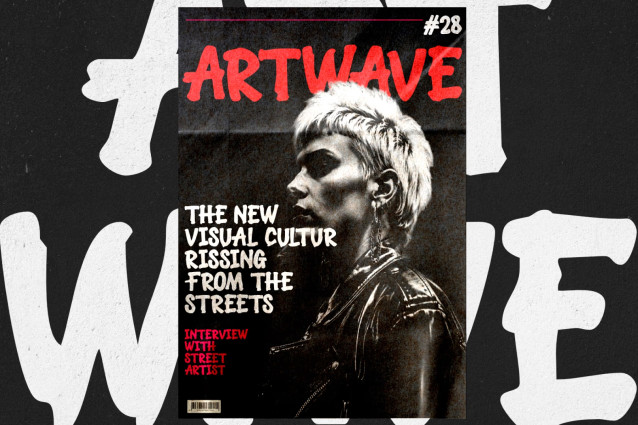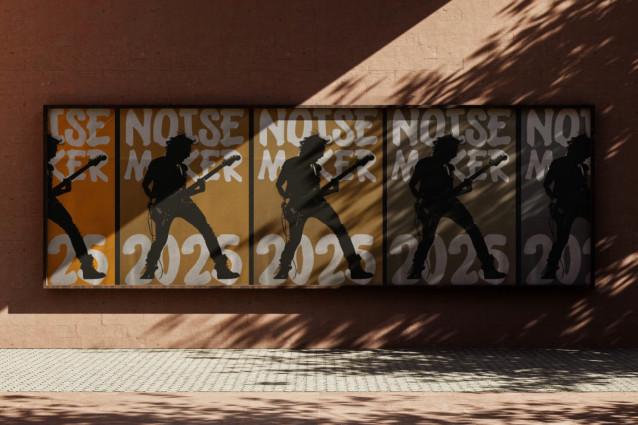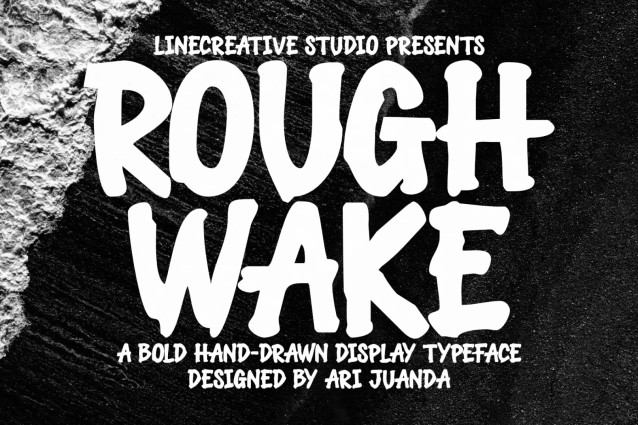
Roughwake Display Font
Roughwake Display Font is a bold hand-drawn display typeface made for designs that need strong personality, raw energy, and an unmistakably handmade character. With chunky letterforms, rough contours, organic shapes, and naturally irregular details, Roughwake brings an expressive and authentic feeling to every word.
Designed to stand out, Roughwake has a distinctive visual personality that feels bold, rugged, playful, rebellious, and adventurous. Its hand-drawn appearance gives typography a more human quality, while its heavy forms provide the visual strength needed for impactful headlines and large-scale designs.
Roughwake is not limited to one particular style. Depending on the imagery, layout, and supporting elements, it can feel wild and adventurous, nostalgic and vintage, or dark and mysterious. This versatility makes it a strong choice for designers looking for a display typeface that can tell different visual stories while keeping its recognizable handcrafted identity.